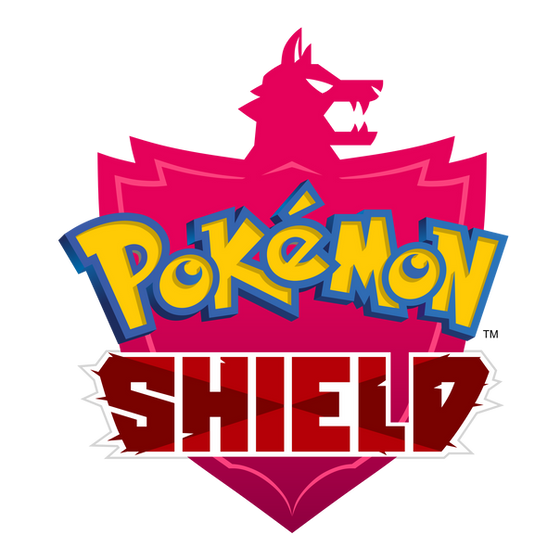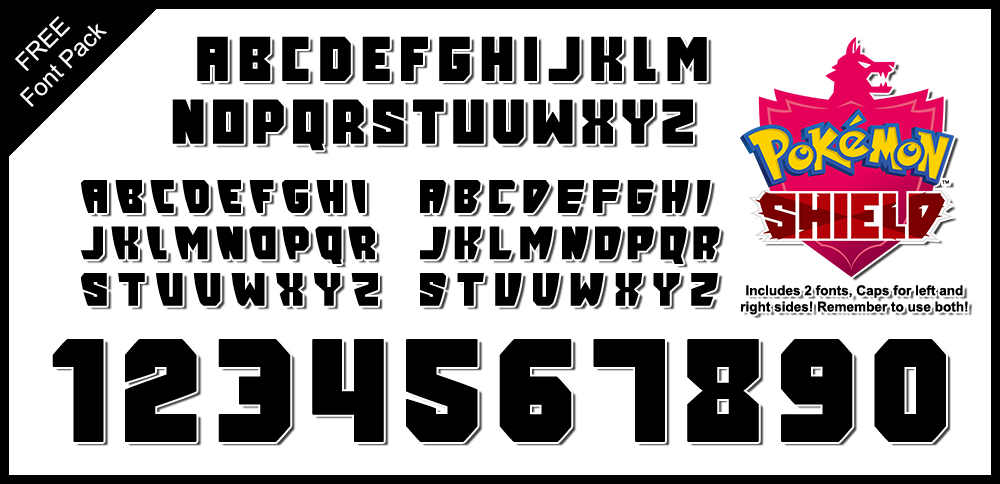
This font is free to use by anyone. To download it, press the DOWNLOAD button.This pack includes 2 versions of the same font. One has left side of Caps, while the other font includes the right sided Caps (with sided I mean those bended letters as seen in the logo).